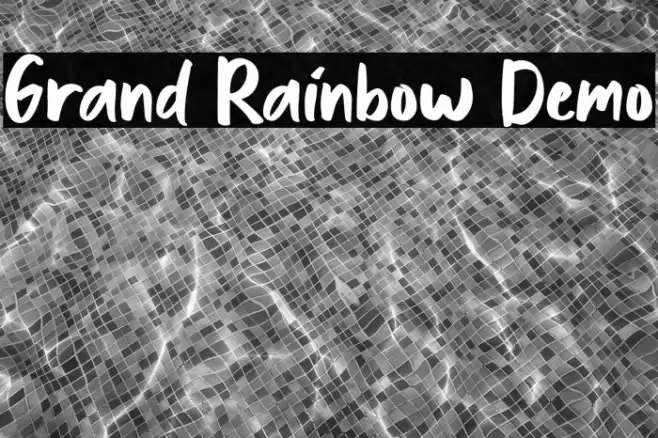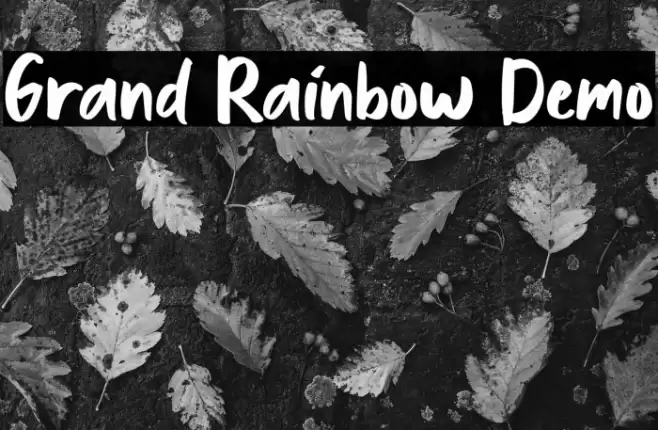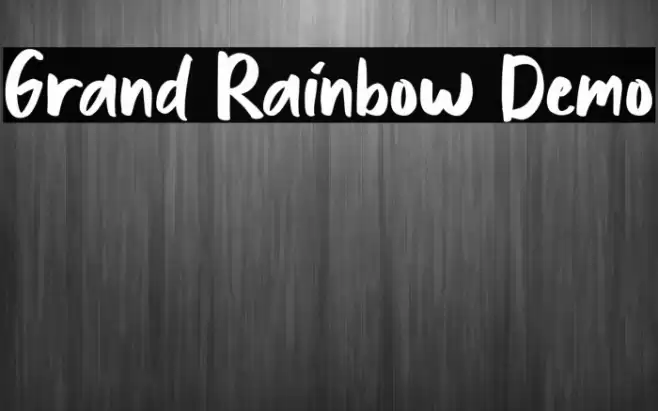
Grand Rainbow Demo Font
Grand Rainbow Demo Description
This font exudes a playful and energetic vibe with its bold, hand-drawn style. The characters are rounded and slightly irregular, giving it a casual and friendly appearance. The strokes are thick and consistent, adding to its boldness and making it highly legible. The uppercase and lowercase letters maintain a cohesive style, with a slight slant that adds dynamism. The font's organic feel makes it suitable for projects that require a personal touch or a creative flair. Its unique style is perfect for capturing attention and conveying a sense of fun and spontaneity.
A bold, hand-drawn font with a playful and energetic style from Regular fonts.
- Proposed Projects: Ideal for greeting cards, children's books, playful branding, and social media graphics.
- Overall Style: Playful